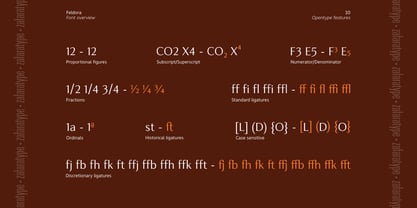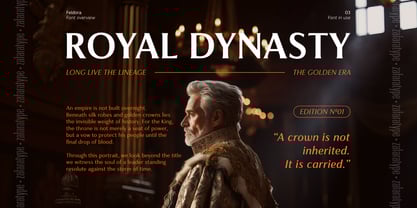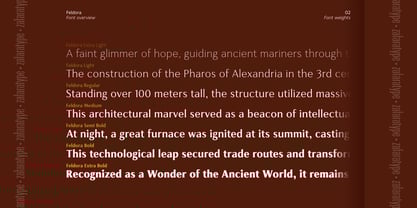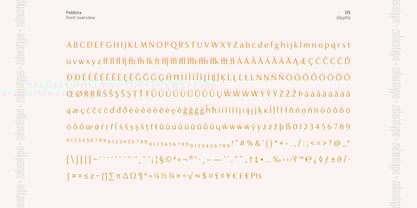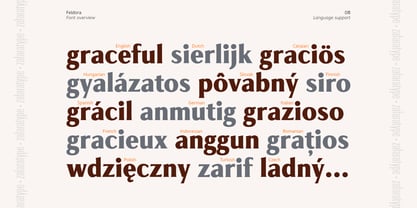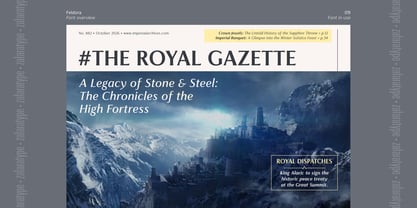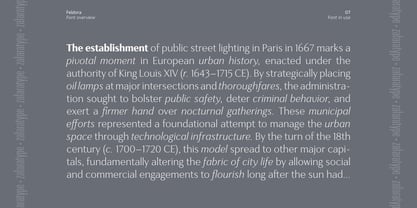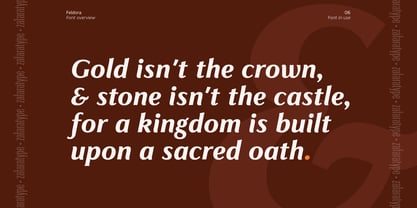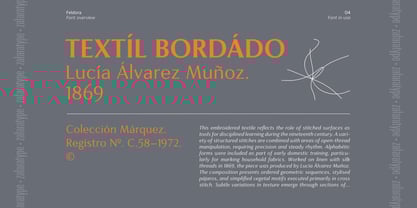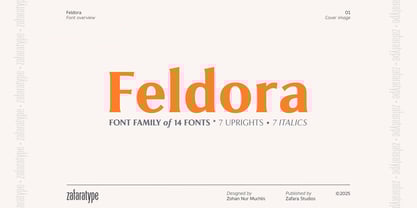
Feldora
The Feldora Font Family was designed by Zohan Nur Muchlis and published by Zafara Studios. Feldora contains 14 styles and family package options. More about this family
Feldora is a sophisticated and expressive flare serif font family that blends sharp sculptural details with refined elegance. Characterized by its distinctive flared serifs and crisp terminals, Feldora delivers a confident yet organic personality, making it ideal for designs that demand clarity, character, and a premium feel. With balanced proportions and expressive contrast, Feldora moves seamlessly between classic and contemporary aesthetics. Whether used for bold headlines or refined editorial layouts, it brings authority, elegance, and visual impact to any project. Key Features: 14 styles with 7 uprights and 7 matching italics 468 glyphs with extended Latin support Includes uppercase and lowercase, numerals, punctuation, currency and math symbols, accented characters, and additional Latin glyphs Carefully designed italics with fluid rhythm and elegant motion Optimized for display and large scale editorial use Feldora is an excellent choice for editorial design, luxury branding, book covers, fashion visuals, cultural projects, and refined visual identities. More than just a typeface, Feldora is a versatile design tool built to elevate typography with sharpness, sophistication, and timeless appeal.